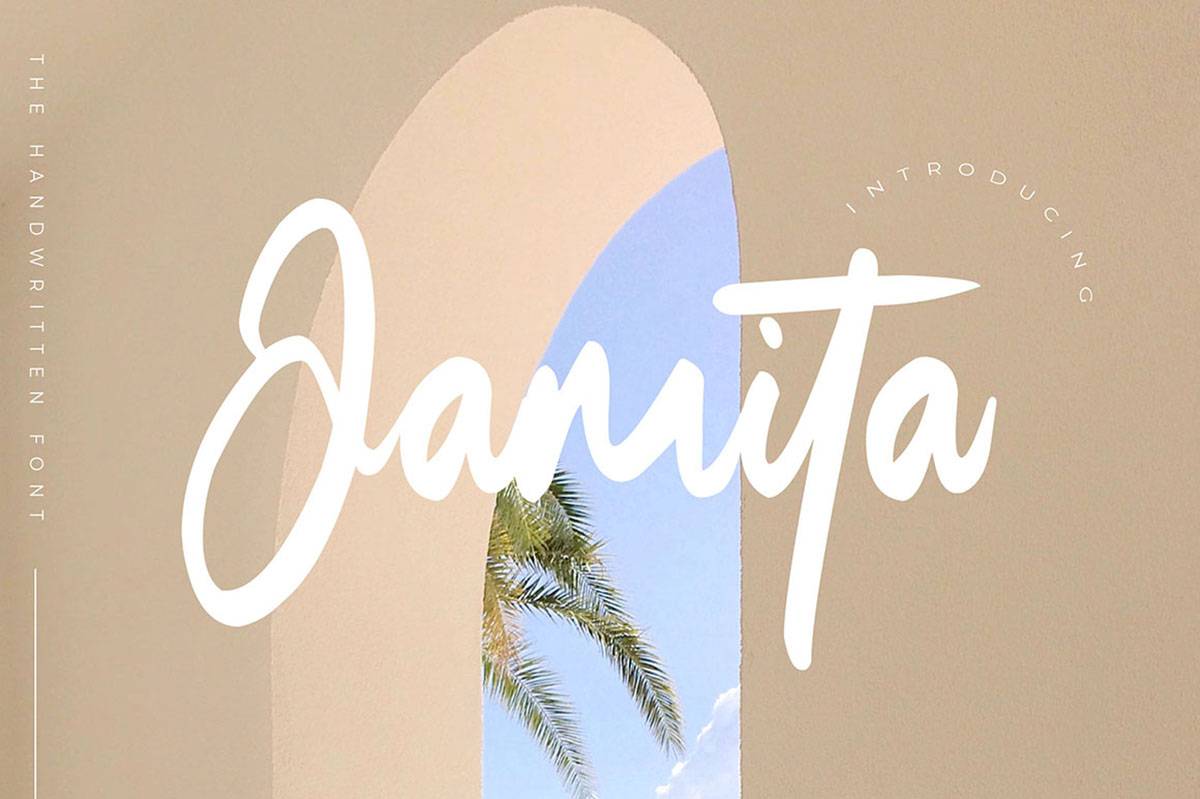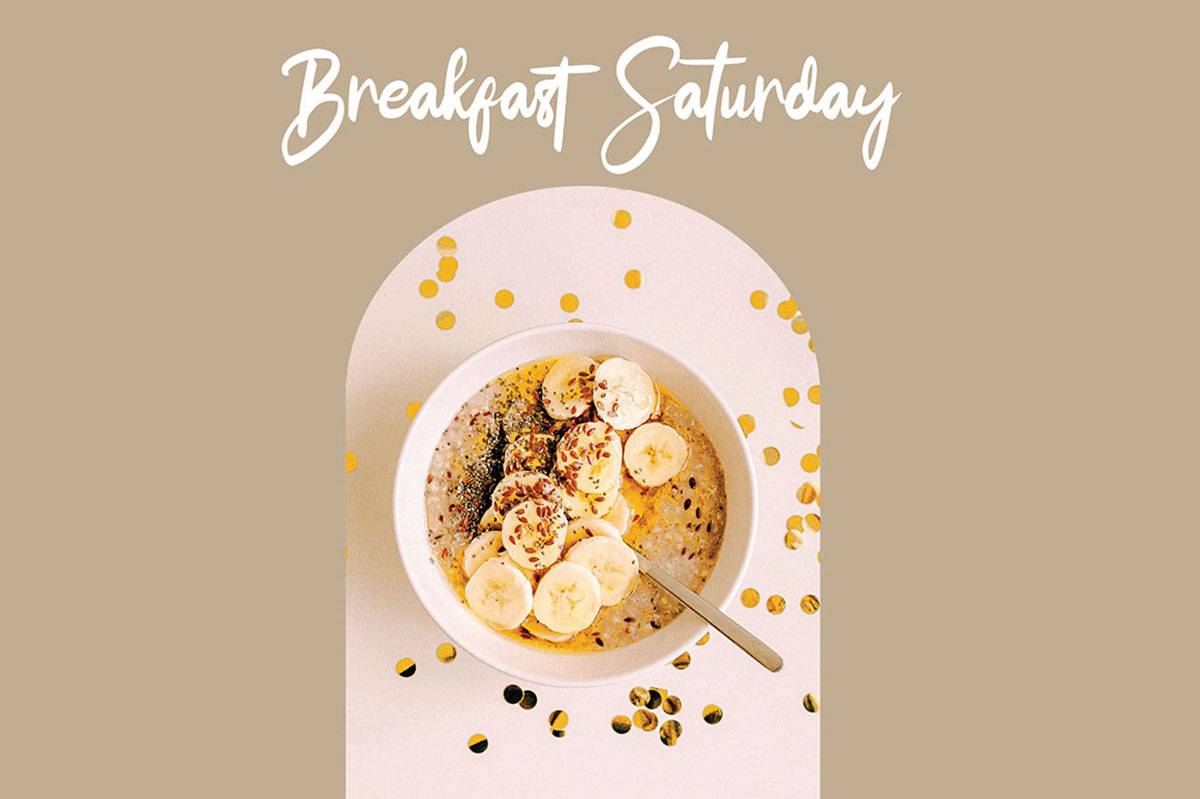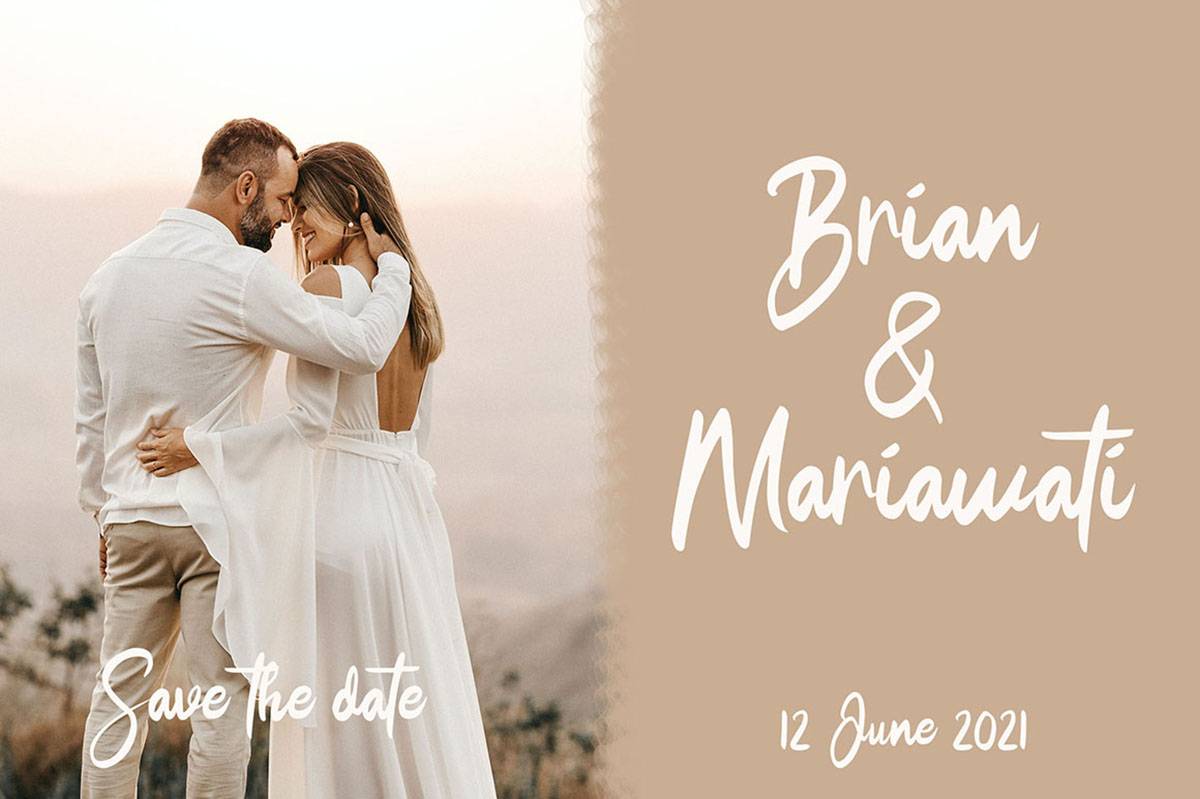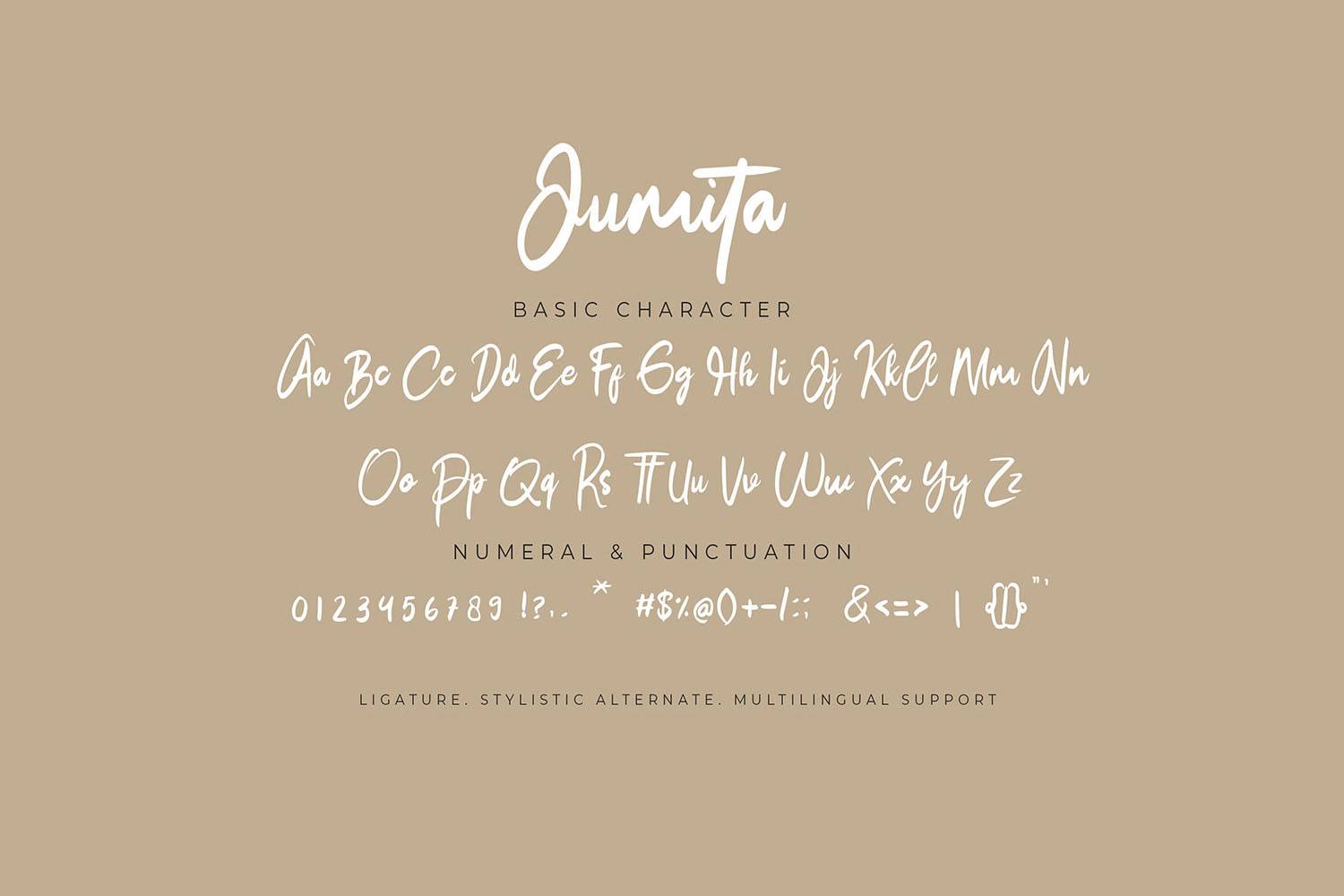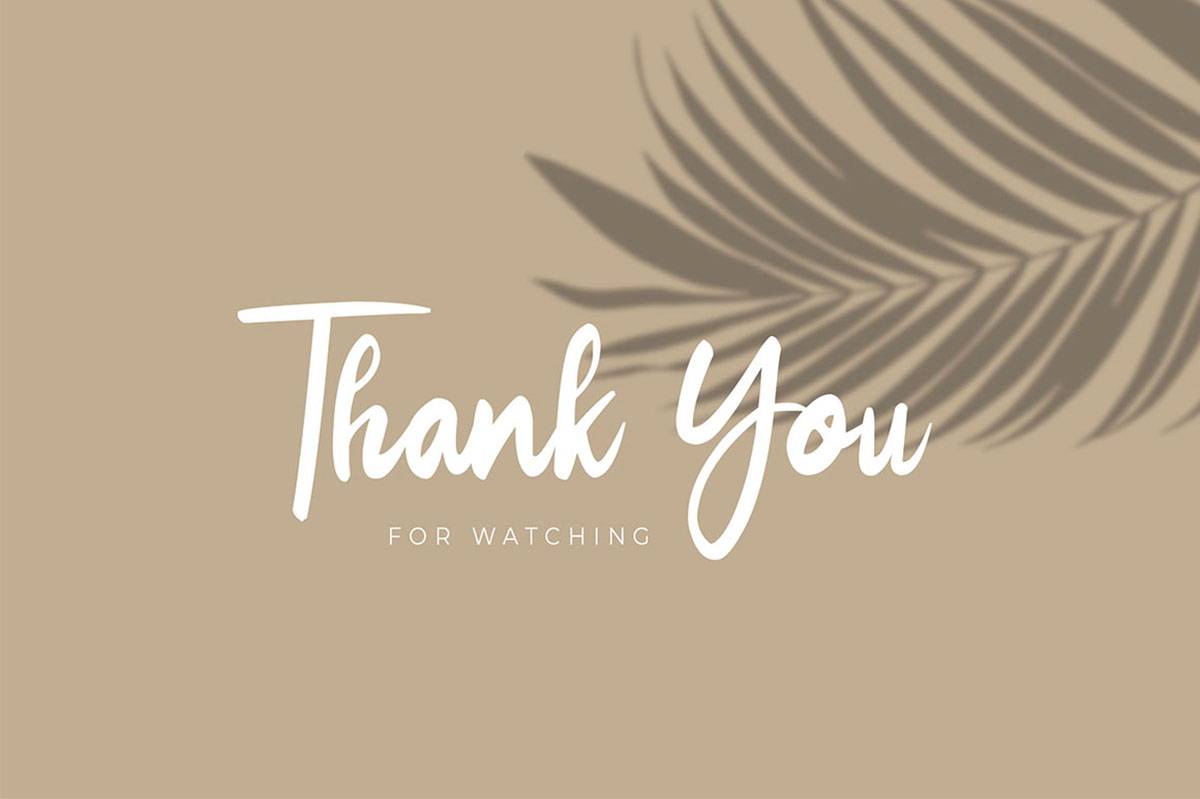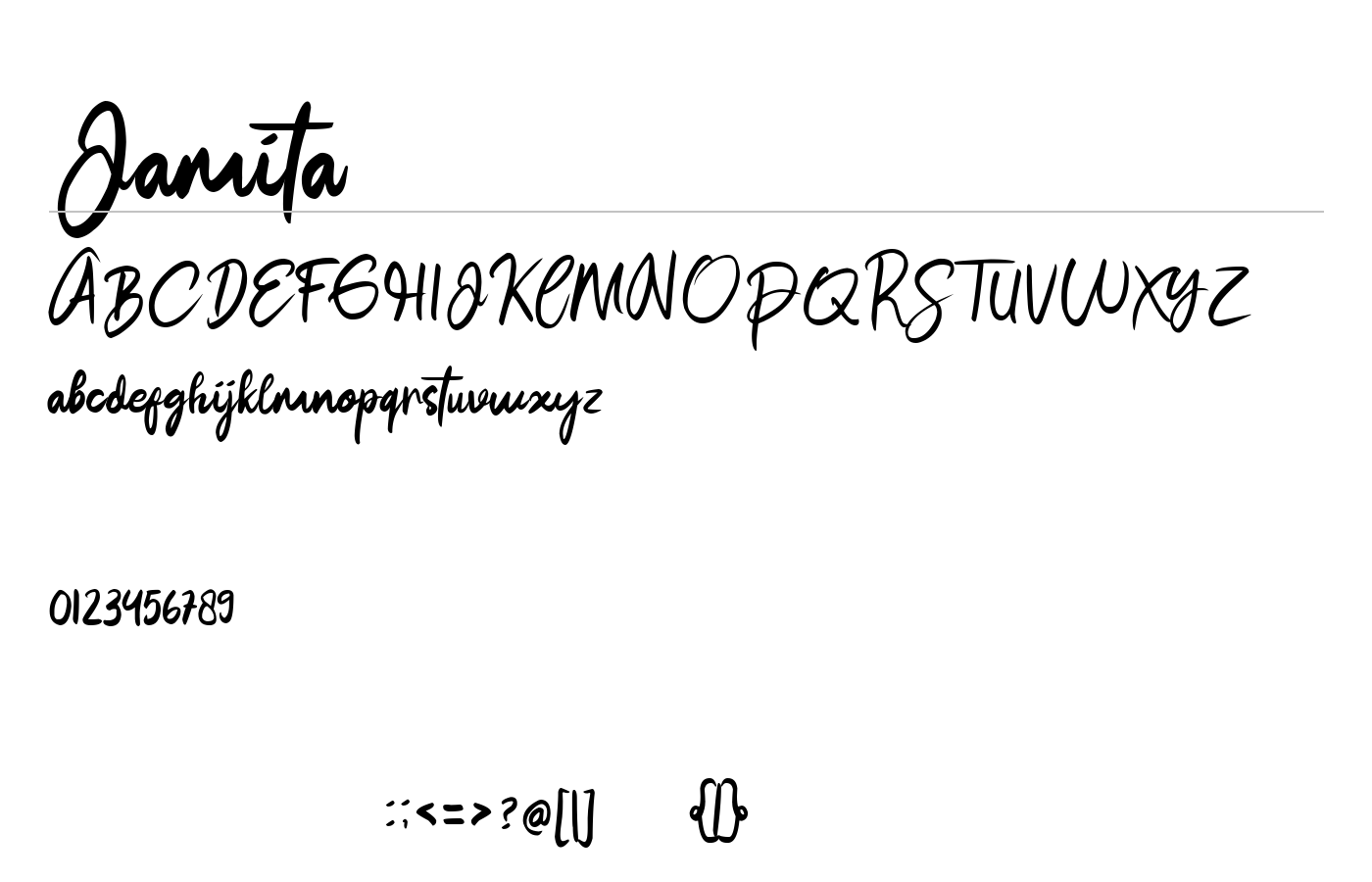
Jamita is a lively handwritten script font with a casual yet elegant personality, featuring smooth, flowing strokes and a slightly condensed, upright style. Its playful letterforms offer strong legibility while maintaining a personal, handcrafted feel, making it ideal for creative branding, invitations, and informal headlines. This font works well in designs that seek a friendly and approachable vibe without sacrificing style.
Jamita Font
| Designer | Letterday Studio |